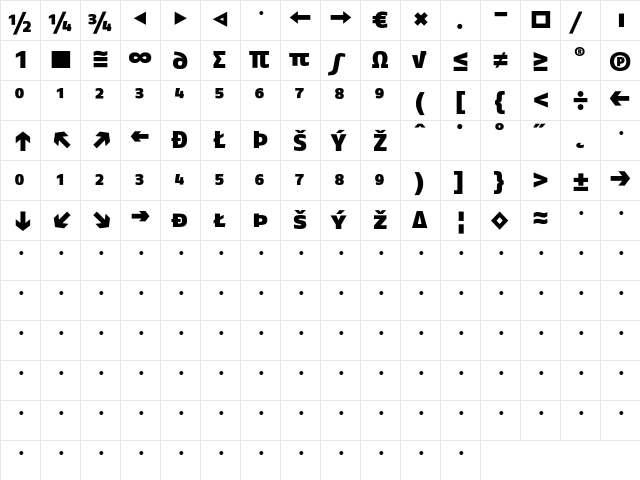
FagoEx BlackCapsExp Font Preview
FagoEx BlackCapsExp
Design Context for FagoEx Typeface
FagoEx offers clean, dependable letterforms without strong stylistic allegiance, making it a practical choice for designers who need flexibility.
Pro Tip: Pair FagoEx with a font of contrasting weight or personality to build a more expressive typographic hierarchy.